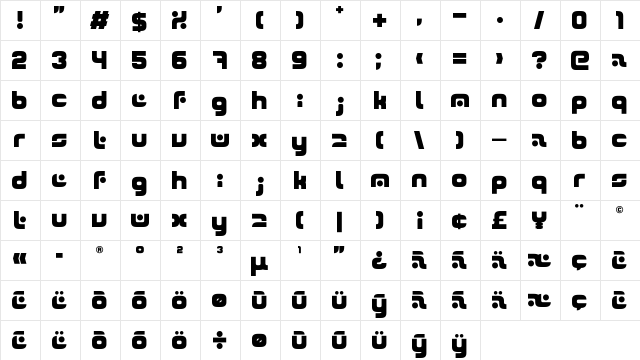
Atmos Regular Font Preview
Atmos Regular
Design Context for Atmos Typeface
Atmos offers clean, dependable letterforms without strong stylistic allegiance, making it a practical choice for designers who need flexibility.